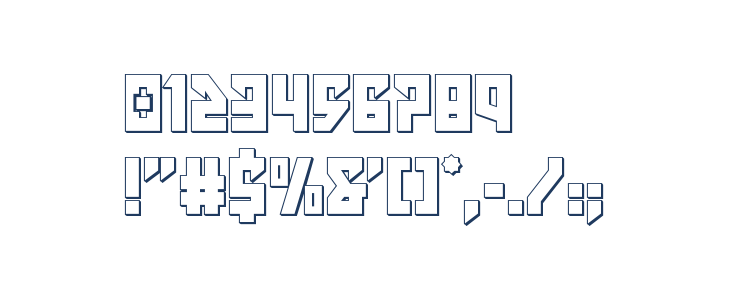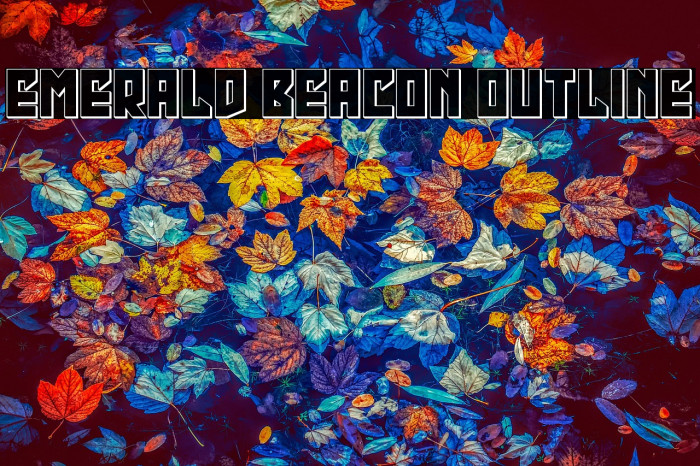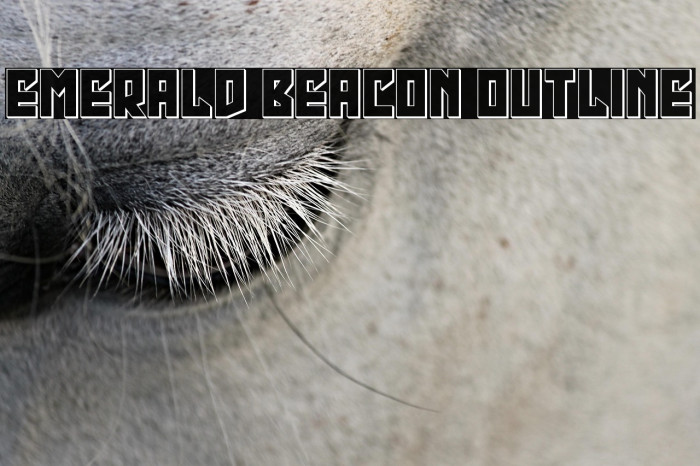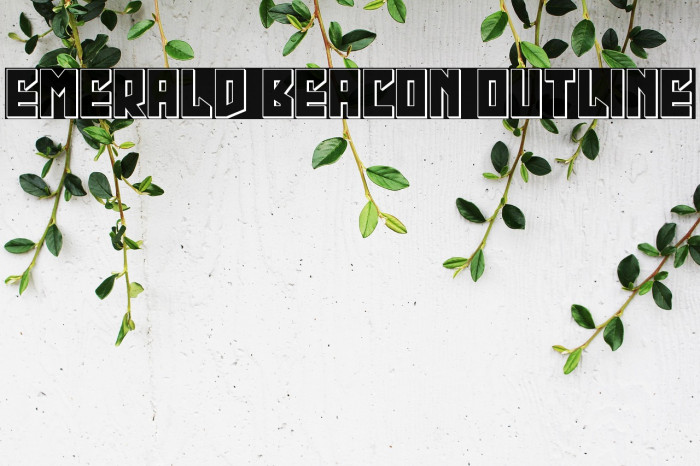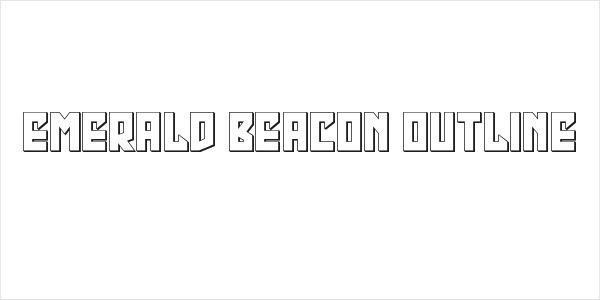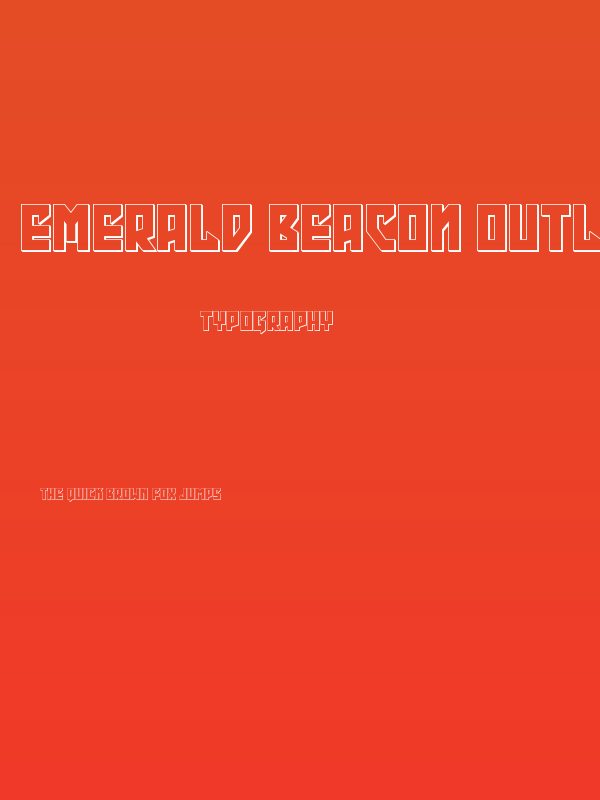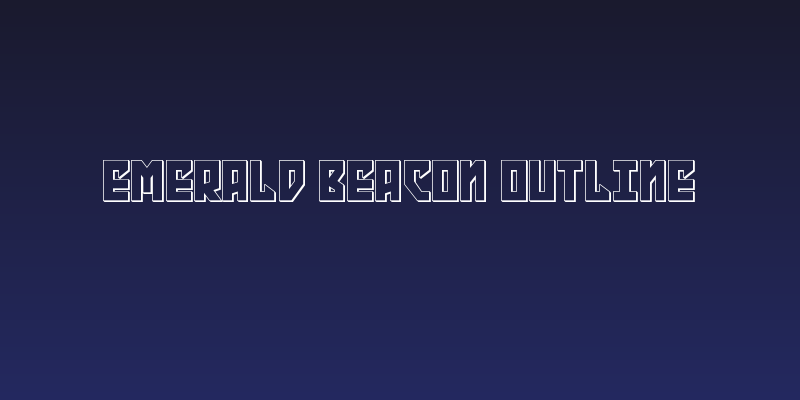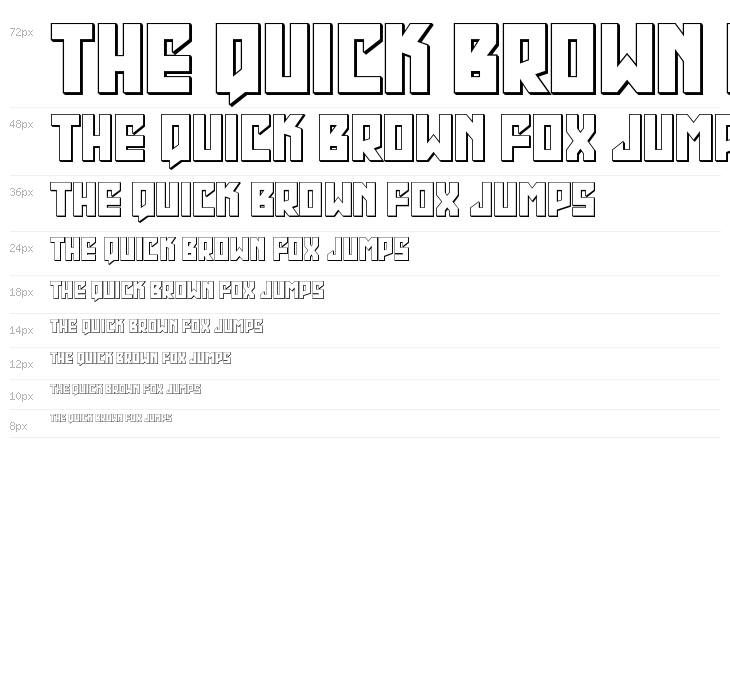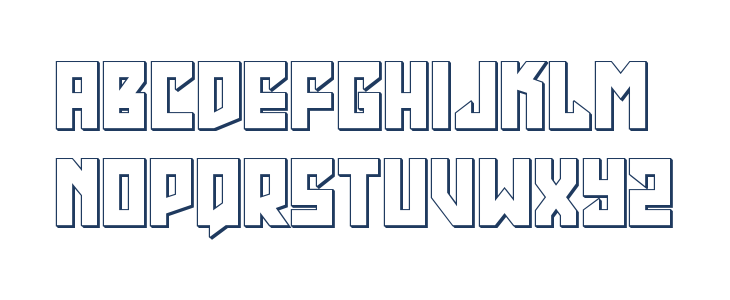
Emerald Beacon Outline Font
Emerald Beacon Outline Description
This font features a bold, geometric outline style that gives it a striking and modern appearance. The characters are constructed with sharp angles and straight lines, creating a sense of strength and structure. The outline design adds a unique dimension, making it stand out in any design project. Each letter and number is distinct, with consistent thickness throughout, ensuring readability while maintaining a decorative flair. The special characters are designed to match the boldness of the alphabet, providing a cohesive look across all elements. This font is ideal for projects that require a strong visual impact.
Proposed ProjectsIdeal for posters, logos, branding, and any design needing a bold statement.